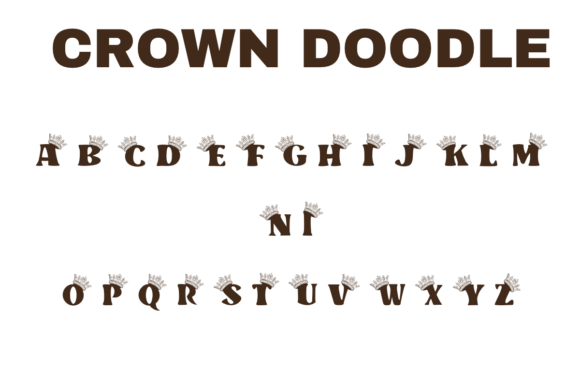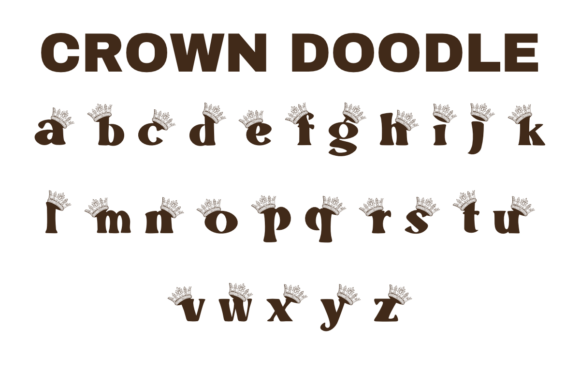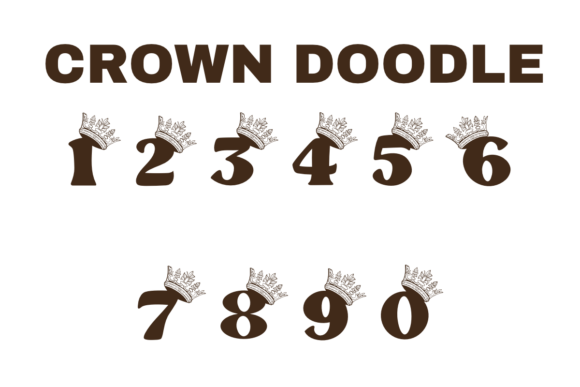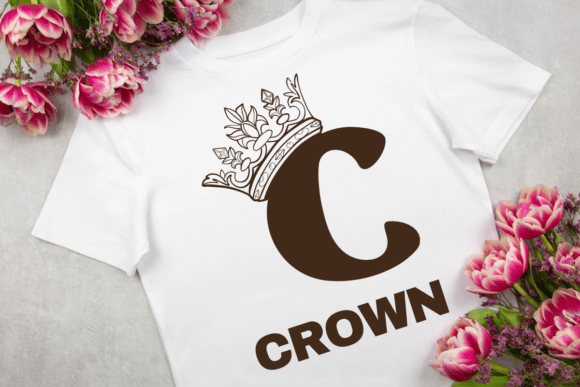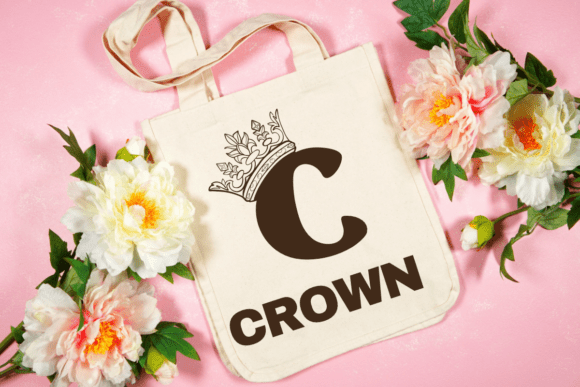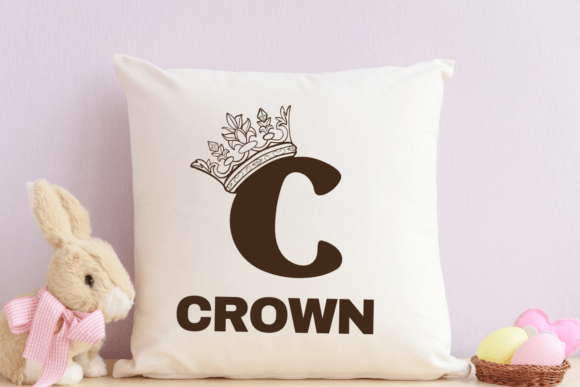
The Joy of Handwritten Style: Introducing Crown Doodle Font
Do you remember the excitement of creating handmade cards and letters as a child? The scribbles, the doodles, and the special touches that made each one unique and personal? That sense of creativity and self-expression can still be captured with the Crown Doodle Font, a beautiful decorative font that’s perfect for taking notes, writing a diary, or making greeting cards.
As a designer, you’ll love the Crown Doodle Font for its versatility and charm. Whether you’re creating banners, content, or designing mugs, cards, or shirts, this font adds a touch of whimsy and personality to any project. With the Crown Doodle Font, you can give your designs a handmade feel without sacrificing professionalism.
Crown Doodle Font Key Features
- Unique Characteristics: The Crown Doodle Font features a whimsical, hand-drawn design with intricate details and ornaments, making it perfect for creative projects.
- Character Set: The font includes a wide range of characters, including uppercase and lowercase letters, numbers, punctuation marks, and special characters.
- Style Options: The Crown Doodle Font comes in multiple styles, including bold, italic, and regular, allowing for versatility in design applications.
- Legibility: Despite its intricate design, the font remains highly legible, making it suitable for both display and body text.
Crown Doodle Font Review
As a designer, I was excited to dive into the Crown Doodle Font and see what it had to offer. Overall, I found it to be a fun and playful addition to any design project. ✨ One of the things that really stands out about this font is its unique, hand-drawn aesthetic. It’s perfect for adding a touch of whimsy and personality to any text-based design.
The font includes a wide range of characters, including uppercase and lowercase letters, numbers, and punctuation marks. This makes it easy to use in a variety of contexts, from logos and branding to web design and print materials.
- Unique, hand-drawn aesthetic ✨
- Wide range of characters, including numbers and punctuation
- Perfect for adding a touch of whimsy and personality to designs
- May not be suitable for formal or professional designs ⚠️
- Some characters may be difficult to read or distinguish from one another
Overall, I think the Crown Doodle Font is a great addition to any designer’s toolkit. While it may not be suitable for every project, it’s perfect for adding a touch of personality and whimsy to designs. With its unique aesthetic and wide range of characters, it’s definitely worth checking out.
Tips for Getting the Most Out of Crown Doodle Font
To get the most out of Crown Doodle Font, use it sparingly and in creative ways, such as:
– Adding a touch of whimsy to your designs
– Creating custom invitations or party decorations
– Adding a playful touch to your social media graphics
Crown Doodle Font is ideal for:
– Party invitations and decorations
– Custom social media graphics
– Whimsical branding and marketing materials
– Handmade or DIY projects